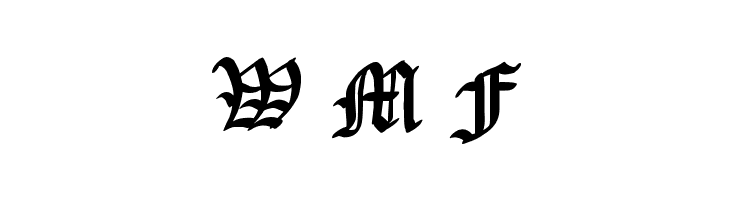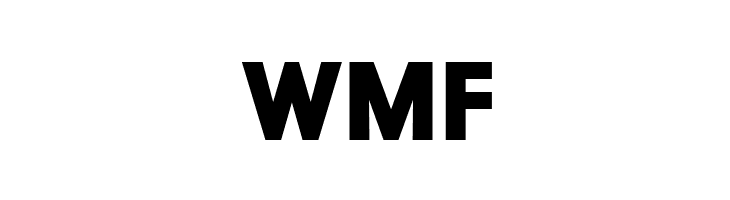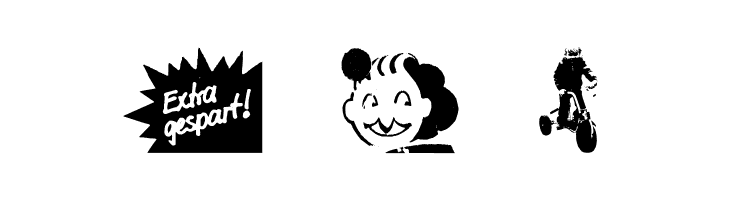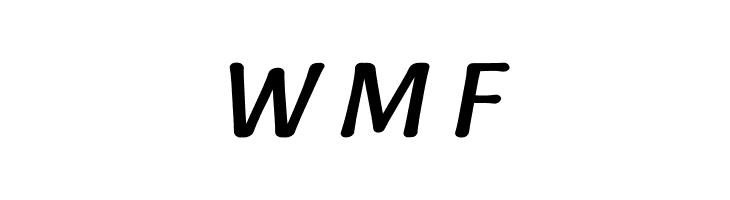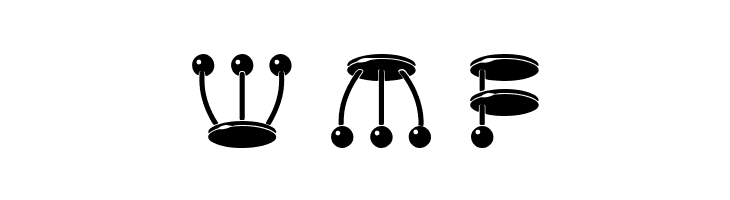
A modern, slightly slanted font with rounded edges and a friendly appearance.
A playful, futuristic font with bold, rounded shapes and whimsical accents.
A bold and intricate Blackletter font with dramatic serifs and ornate details.
A bold, handcrafted font with artistic and dynamic characteristics.
A bold, modern font with a vintage touch, featuring slightly condensed uppercase letters.
A bold, dramatic font with sharp angles and a strong presence.
A pictogram dingbat font with eclectic, illustrated symbols.